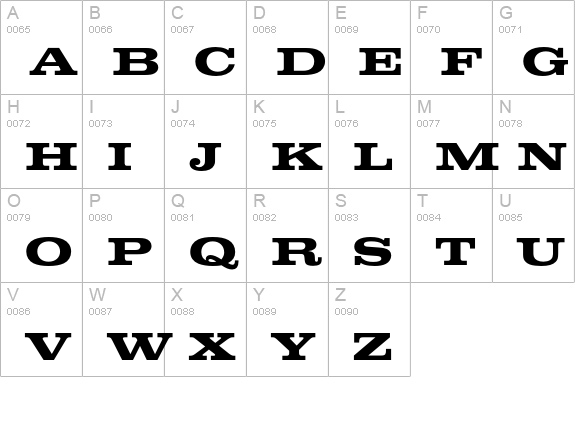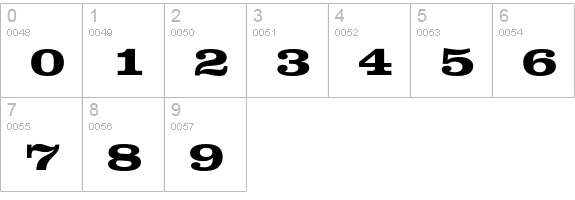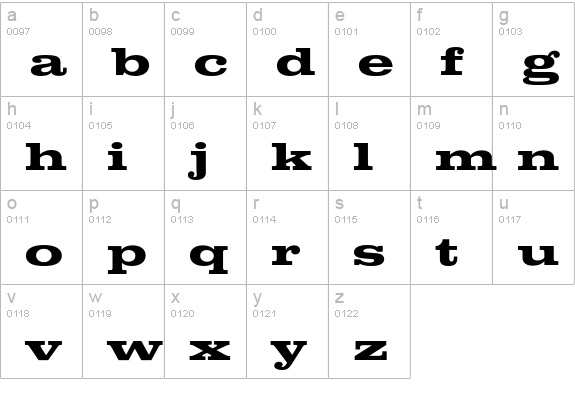
ClarendonEF-BoldExpanded Font Details
ClarendonEF-BoldExpanded font is a bold and commanding typeface that exudes strength and confidence. Its expanded design gives it a bold and impactful presence, making it perfect for headlines, titles, and other attention-grabbing text. The robust letterforms of ClarendonEF-BoldExpanded make it highly legible even at smaller sizes, ensuring that your message will be clearly and effectively communicated. Best of all, ClarendonEF-BoldExpanded font is available for free download at FontsMarket.com. This means that you can effortlessly enhance your designs with this powerful and versatile typeface without any cost. Don't miss out on this opportunity to elevate your projects with the timeless appeal of ClarendonEF-BoldExpanded font. Download it today and see the difference it can make in your design work.